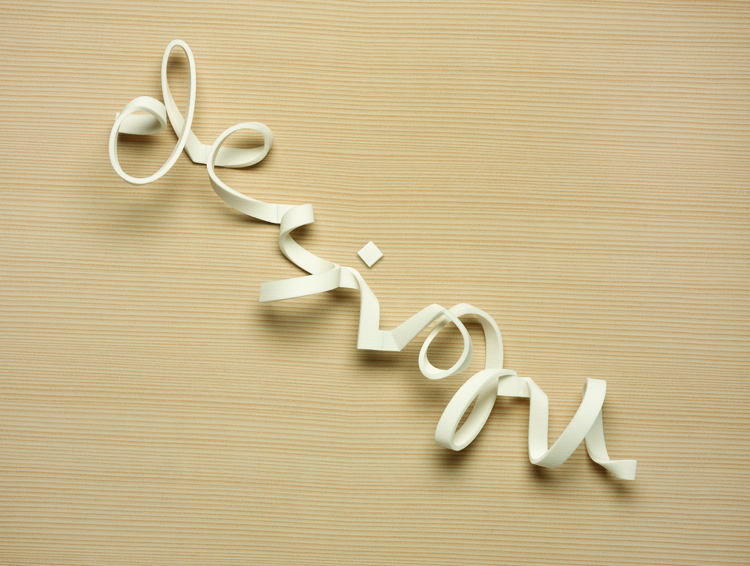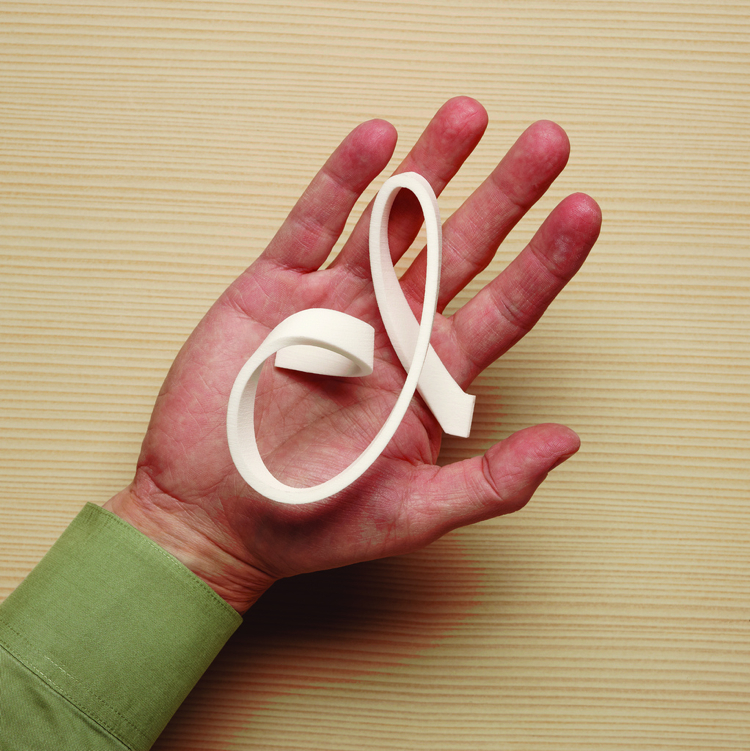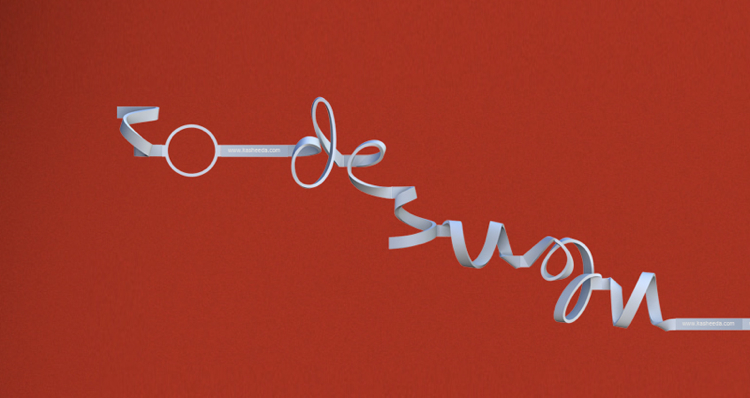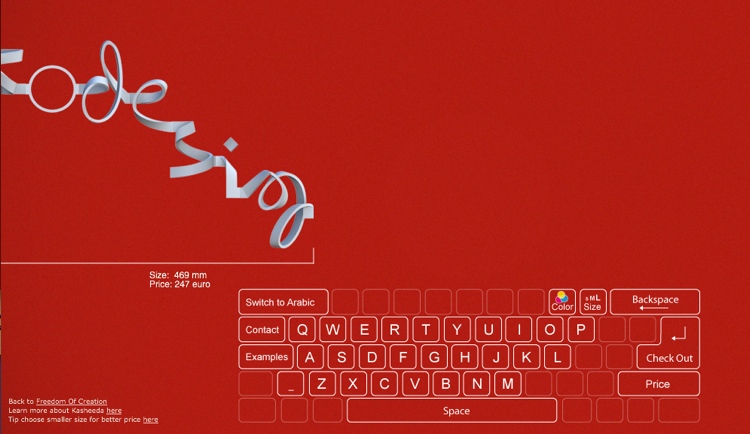
Freedom of Creation Unveils Customizable 3-D Font
The Dutch rapid-prototyping manufacturer and distributor bills Kasheeda as the world’s first 3-D font.
We've got a hot one for all you typography freaks out there: The Dutch rapid-prototyping juggernaut Freedom of Creation has released an arty new font designed explicitly to be printed in 3-D. The result is a snaking, spiraling, sinewy typographic sculpture that's totally customizable and would look right at home on the mantle.
Freedom of Creation bills it as the "world's first 3D font." Here's how to make your own sculpture: Type whatever text you want into this super-simple online interface (shown below). There, you can also specify things like color (gray or white) and size (small, medium, or large). Within weeks, you get a 3-D version in the mail printed in nylon out of Freedom of Creation's Selective Laser Sintering machines.
The font has a lovely loopiness about it -- like some sort of combination of Arabic and English cursive -- which was by design. Called Kasheeda, it was developed in tandem with Yara Khoury and Melle Hammer of the Amsterdam-based Khatt foundation Center for Arabic Typography. They envisioned the font as a sort of cultural bridge between the Middle East and the West. Per Freedom of Creation's Web site:
The sloping Arabic letterforms become straight and strict [like Latin letterforms] and vice versa, generating a fusion of the two cultural backgrounds. This is enhanced by the fact that in 3D typewriting the result is non directional: neither from left, like Latin writing, neither from right, like Arab writing. It is just about space ? and the two writings can meet in the middle.